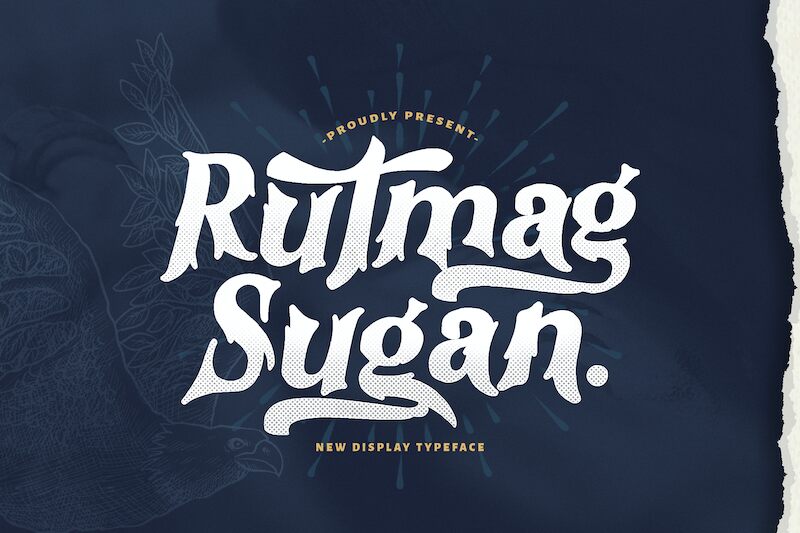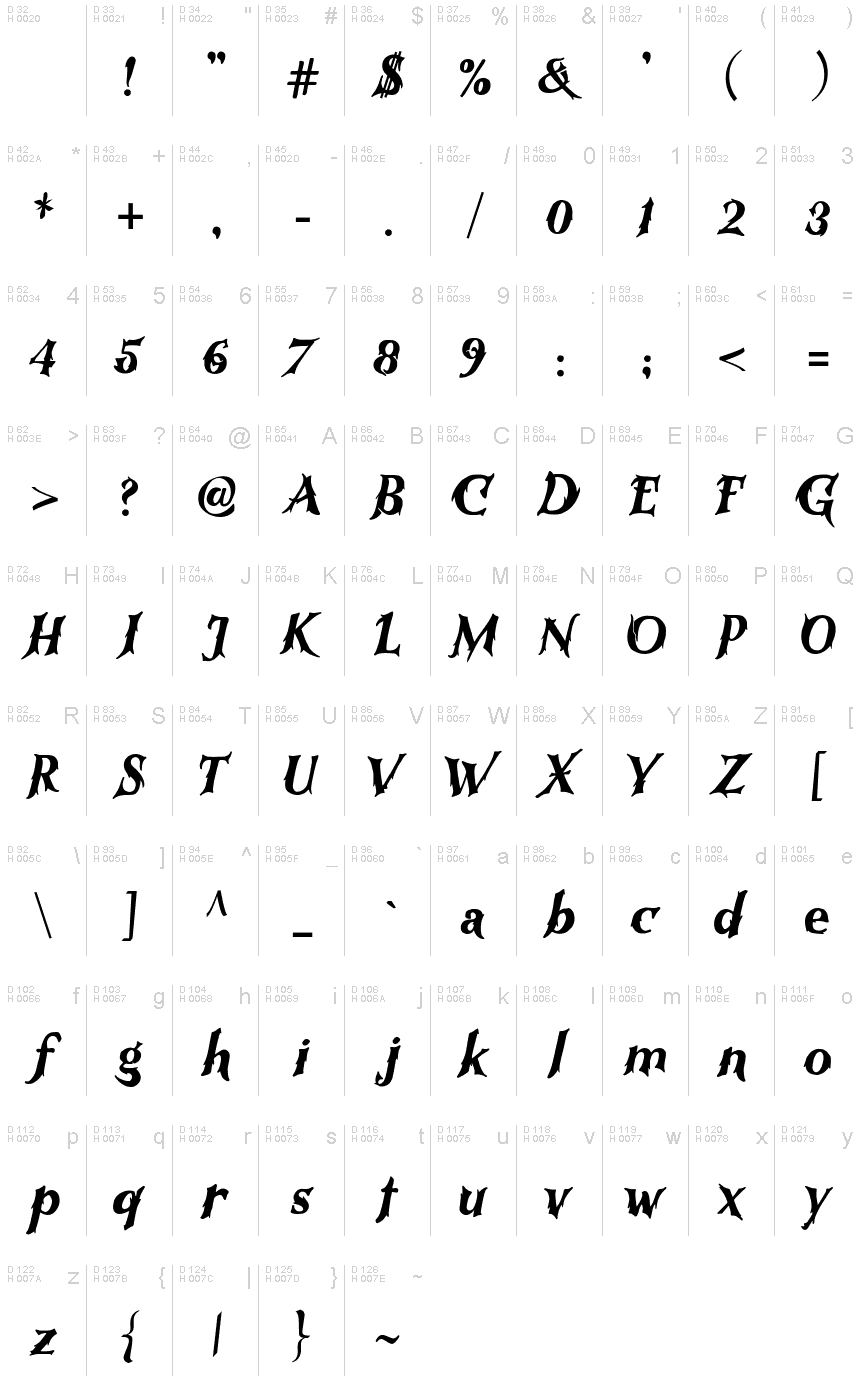
Rutmag Sugan font is a scary display typeface designed by Virgiawan Listanto.
Prezentacja i próbka wizualna czcionki Rutmag Sugan Regular
Mapa znaków czcionki Rutmag Sugan Regular
Glify czcionki Rutmag Sugan Regular — Podstawowy łaciński, strona 1